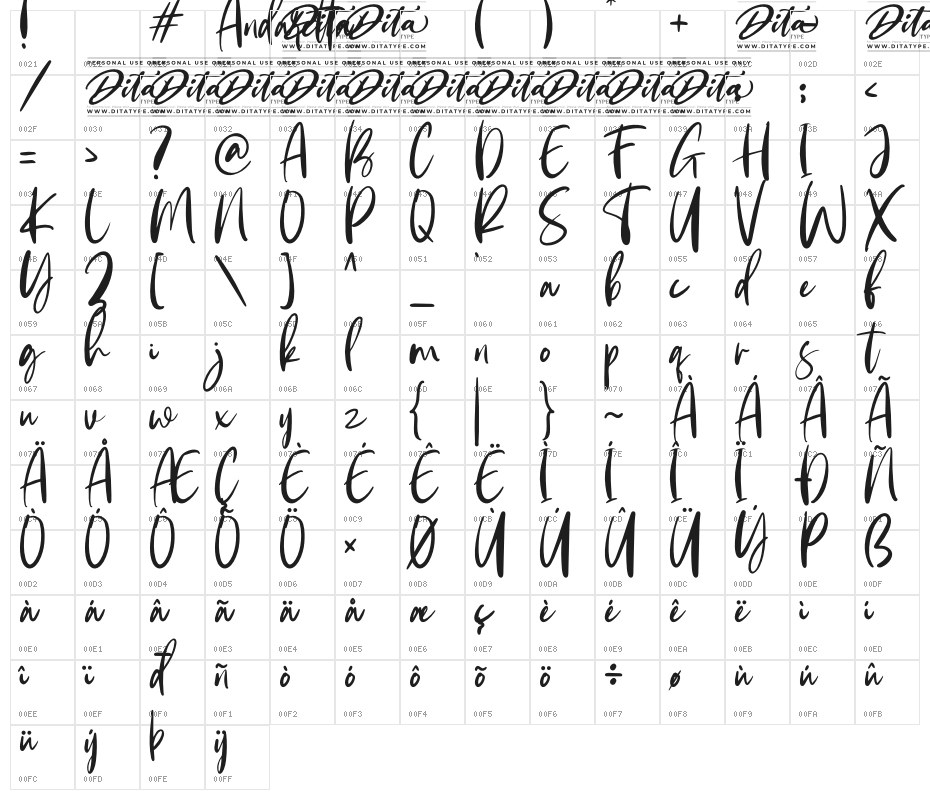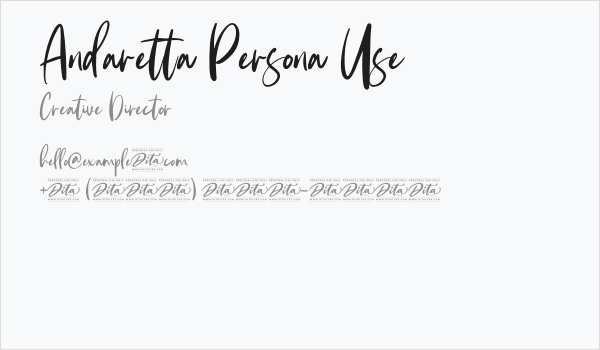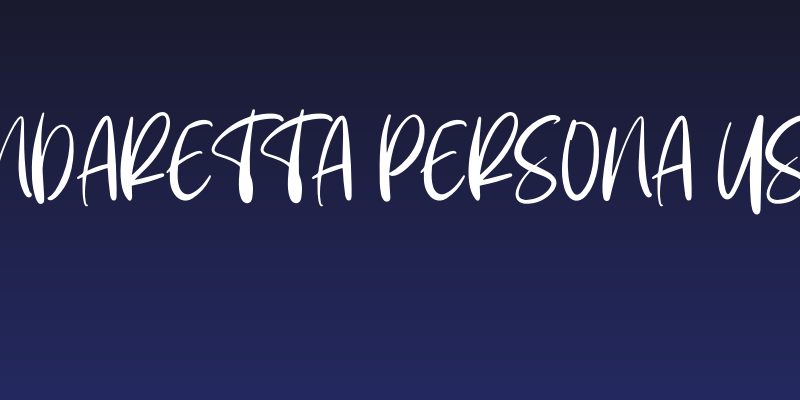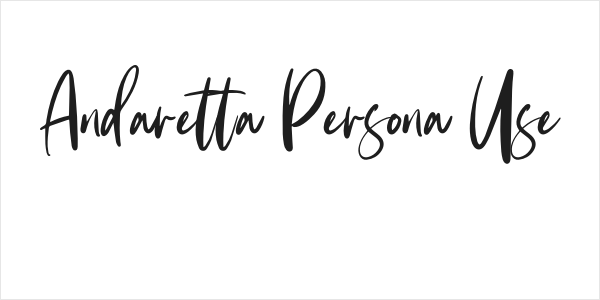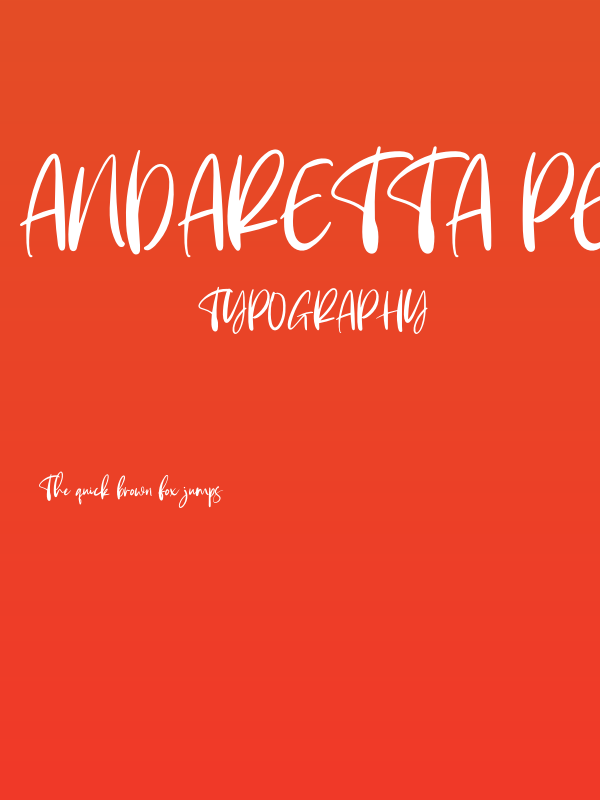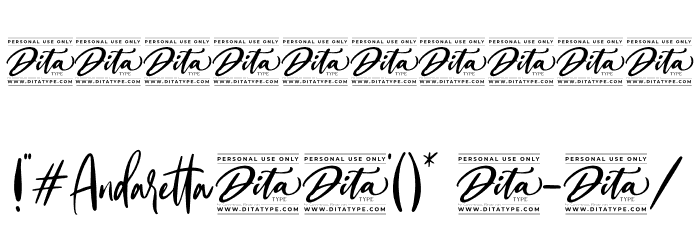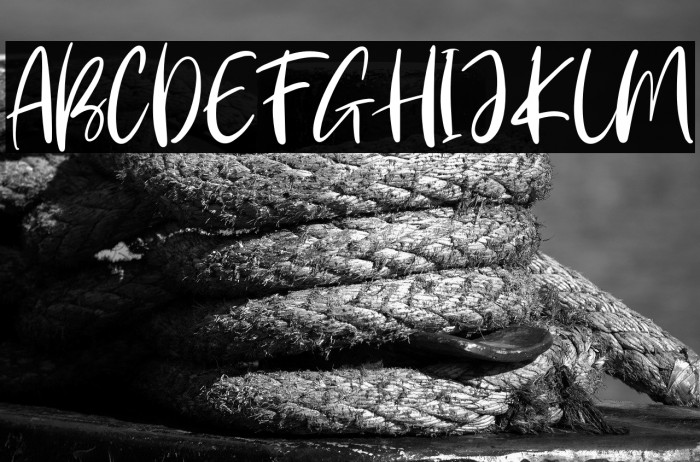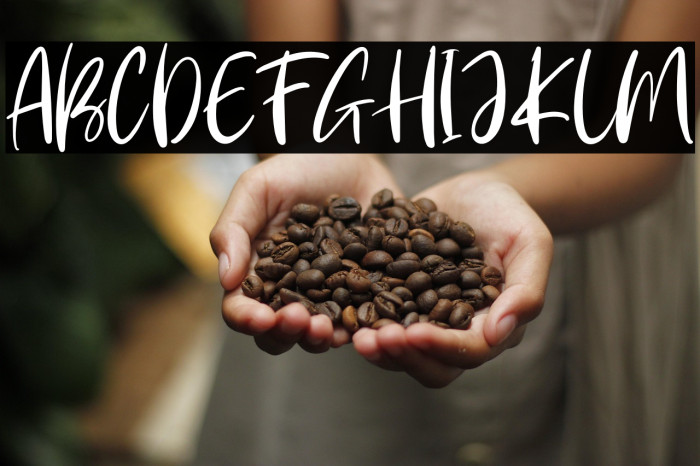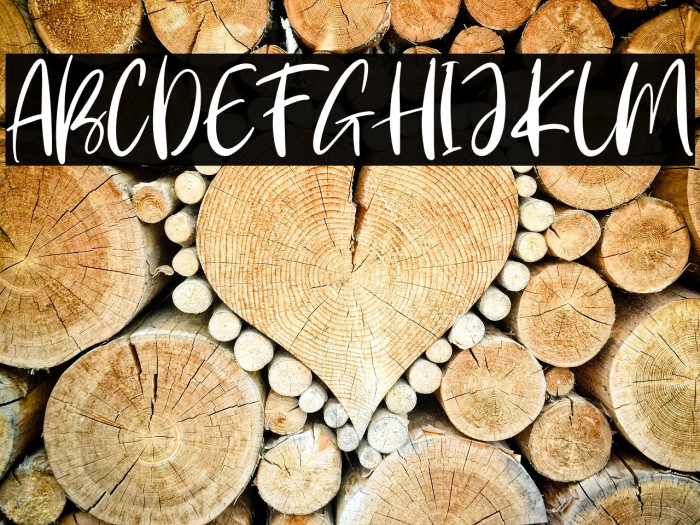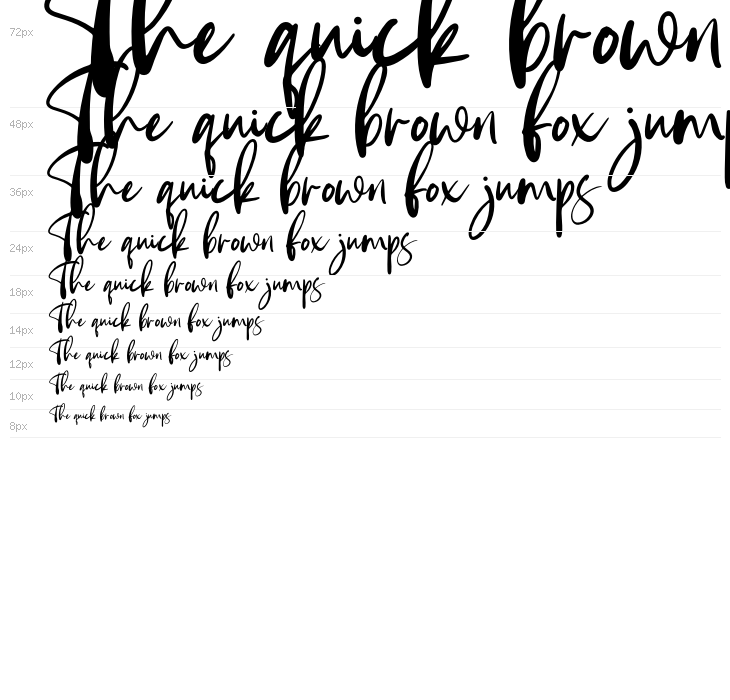
Andaretta Persona Use Font
This font features a dynamic and expressive handwritten style, characterized by its fluid and flowing letterforms. The uppercase letters are bold and slightly slanted, giving a sense of movement and energy. The lowercase letters maintain a consistent rhythm, with some letters extending below the baseline, adding to its casual and artistic appeal. The strokes vary in thickness, providing a medium contrast that enhances readability while maintaining a playful aesthetic. The special characters complement the overall style, making it suitable for creative and informal applications.